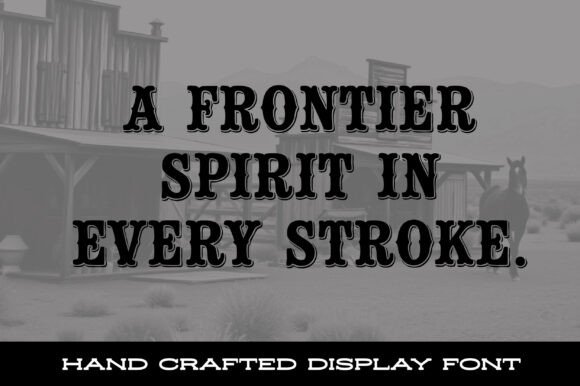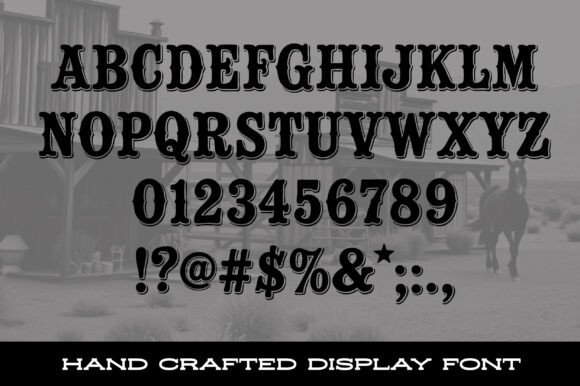
Ryehouse Font
Ryehouse is a bold, hand-drawn Western display font that carries the soul of a dusty saloon and the grit of a whiskey label. Each letter feels stamped, weathered, and full of character — like it’s been pressed into aged oak. Thick lines, rough edges, and organic curves give it that authentic vintage charm, perfect for posters, signage, branding, and anything that calls for a taste of the frontier.